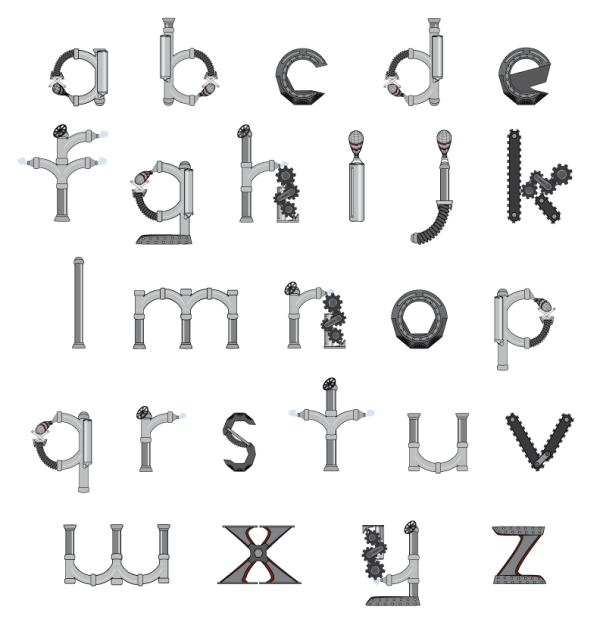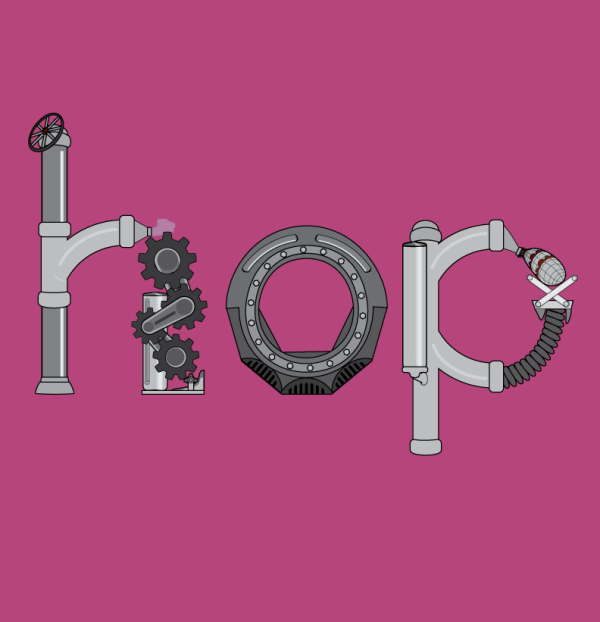
Steamsans
A sans serif font made of complex machine parts. You are free to use this however you choose, just don't go selling it.
Designer: micah Evan brightwell
Publisher: micah Evan brightwell